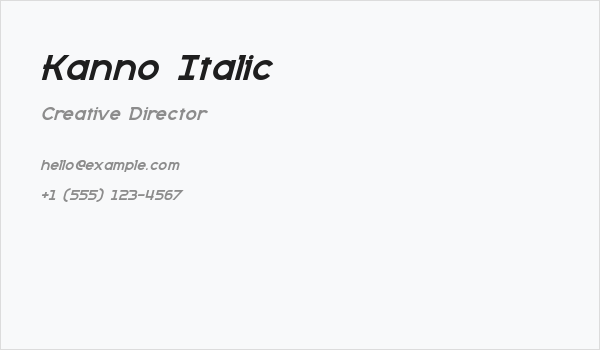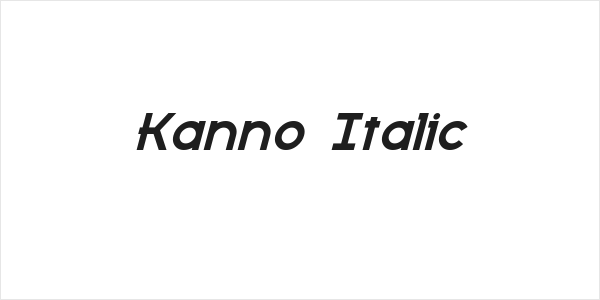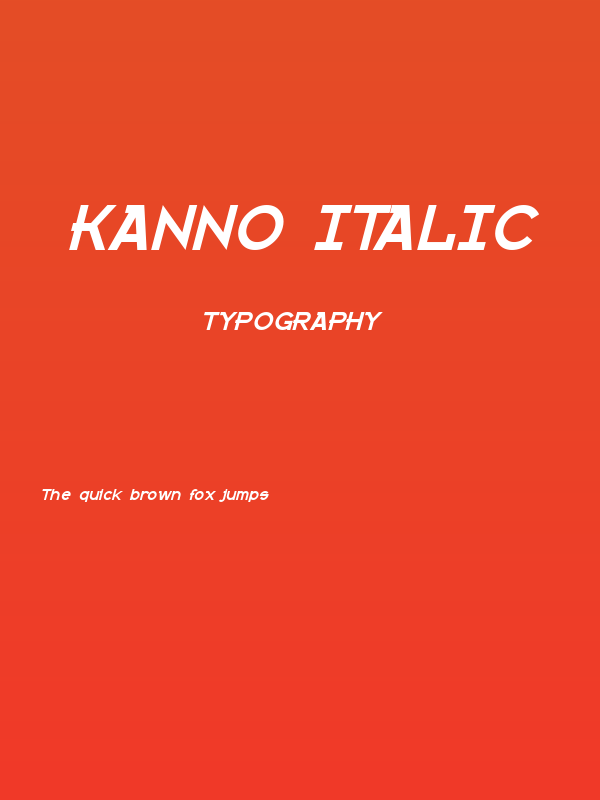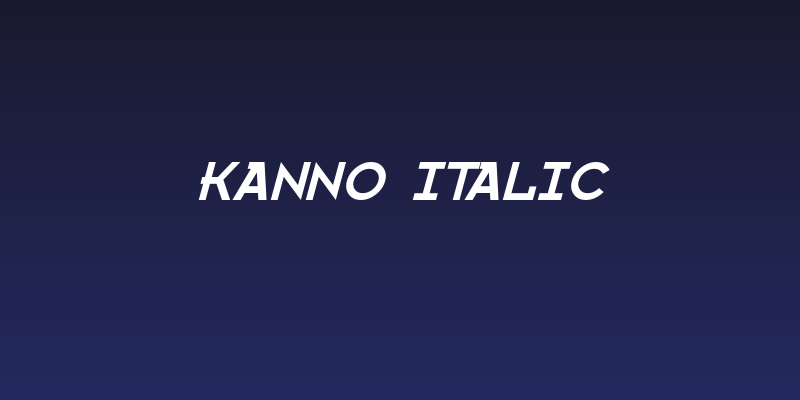
Kanno Italic Font
Kanno Italic Description
This font features a sleek, italicized style with a modern aesthetic. The characters are slightly slanted, giving a sense of motion and dynamism. The strokes are consistent in thickness, providing a uniform appearance across all characters. The uppercase letters are bold and prominent, while the lowercase letters maintain a smooth flow. The numerals are clear and easily distinguishable, complementing the overall design. Special characters are included, adding versatility for various uses. The font's design is both contemporary and functional, making it suitable for a wide range of applications.
| Use Case | Headlines, Logos, Digital Media |
| Proposed Projects | Ideal for branding, advertising, and digital media projects that require a modern and dynamic touch. |